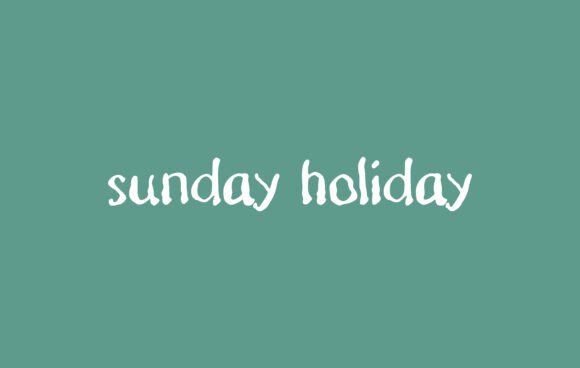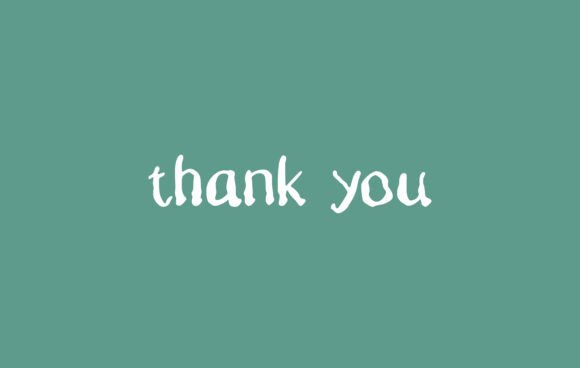
Introduction to Knotty Font
Knotty font is an authentic handwritten font with a romantic touch.
Key Features of Knotty Font
Why Choose Knotty Font?
Knotty Font offers exceptional quality and versatility, making it a valuable addition to your design toolkit. Whether you’re creating for personal projects or commercial use, Knotty Font delivers professional results.